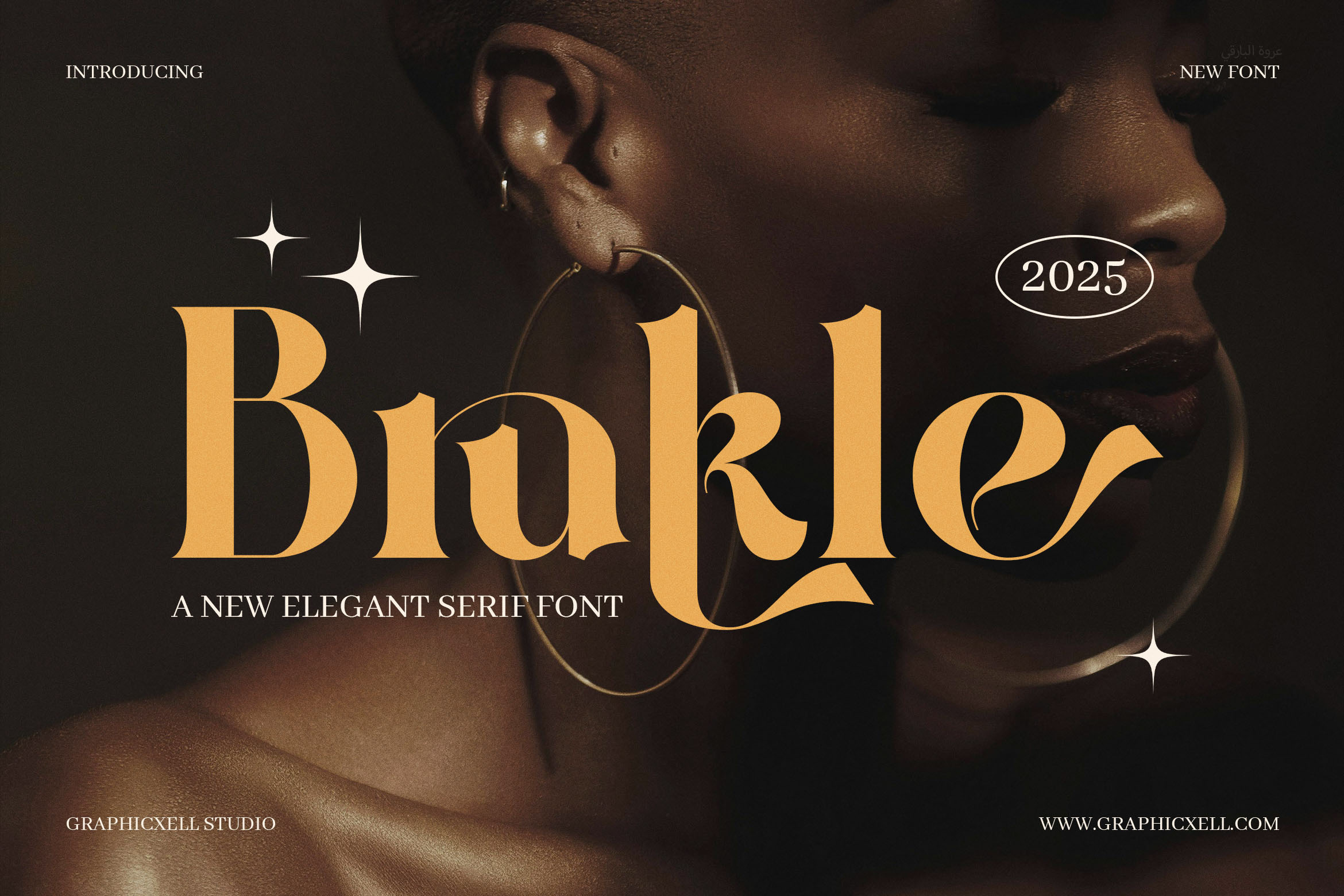
Brukle Elegant Serif Font
Discover Brukle Serif Font—a stylish serif typeface that adds timeless grace to your design. This font blends classic charm with modern clarity, making it perfect for editorial layouts, branding, invitations, and headlines alike. Its smooth strokes and refined serifs enhance readability, while still delivering that elegant, vintage feel.
What Makes It Shine:
A balanced serif style that’s both classic and fresh
Clear letterforms that improve reading flow
Versatility across print and digital formats
Perfect for branding, editorial design, invitations, and more
With Brukle Serif, you'll enjoy:
Elegant serifs that elevate headlines and titles
Clean structure that supports body text and captions
Versatile usage, from branding to editorial
High‑resolution glyphs suitable for any medium
Whether you’re designing a magazine spread, a wedding invitation, or a luxury logo, this serif font offers both elegance and flexibility. It invites readers to pause and appreciate every letter. Plus, its crisp lines maintain clarity even at small sizes. Transitioning between print and web work? No problem—Brukle handles both seamlessly.
All in all, Brukle Serif Font combines heritage-style beauty with modern functionality. It’s a refined choice for designers who want to bring warmth, sophistication, and readability into every project, whether it’s a polished editorial layout or a brand story that stands out.